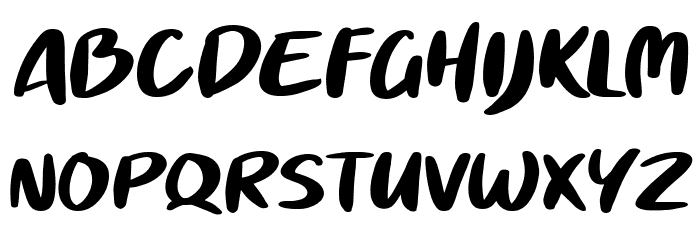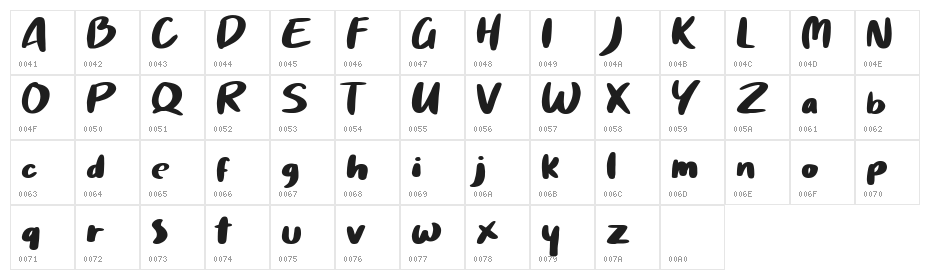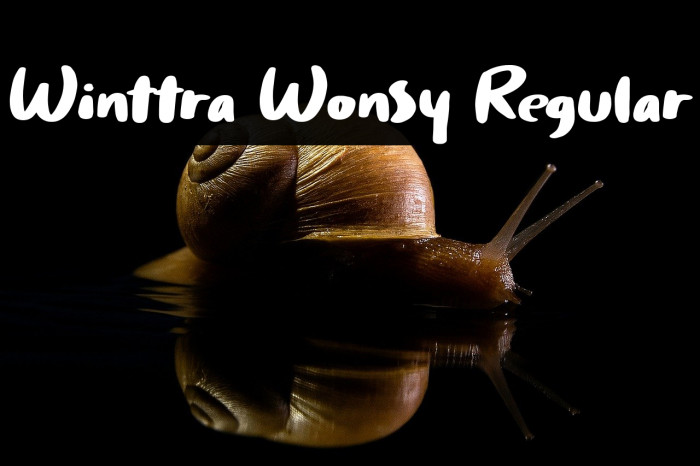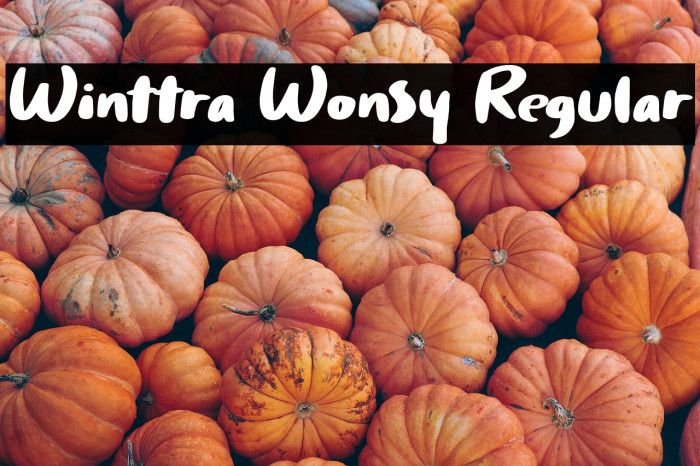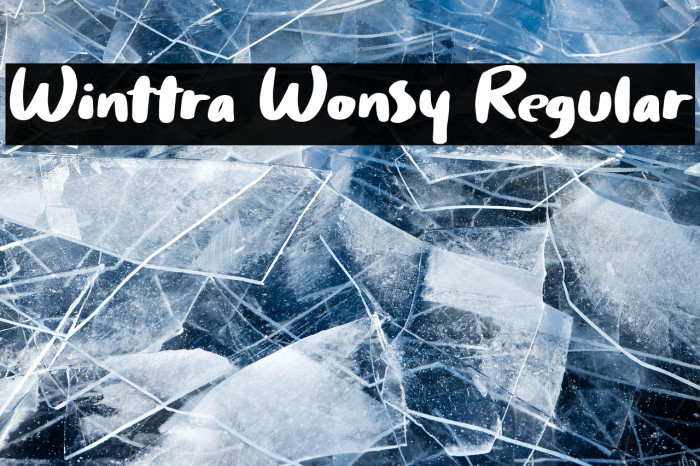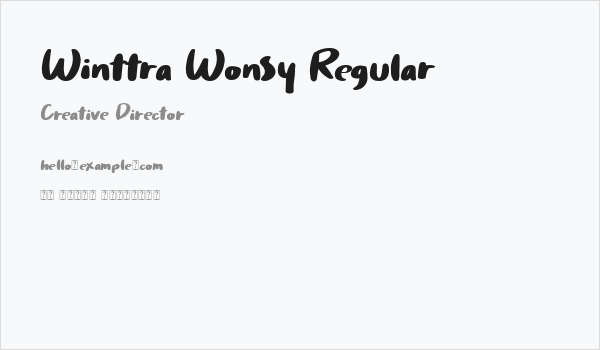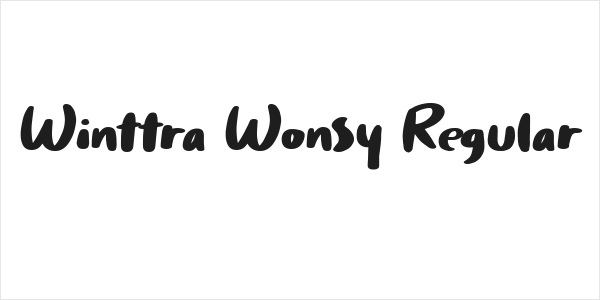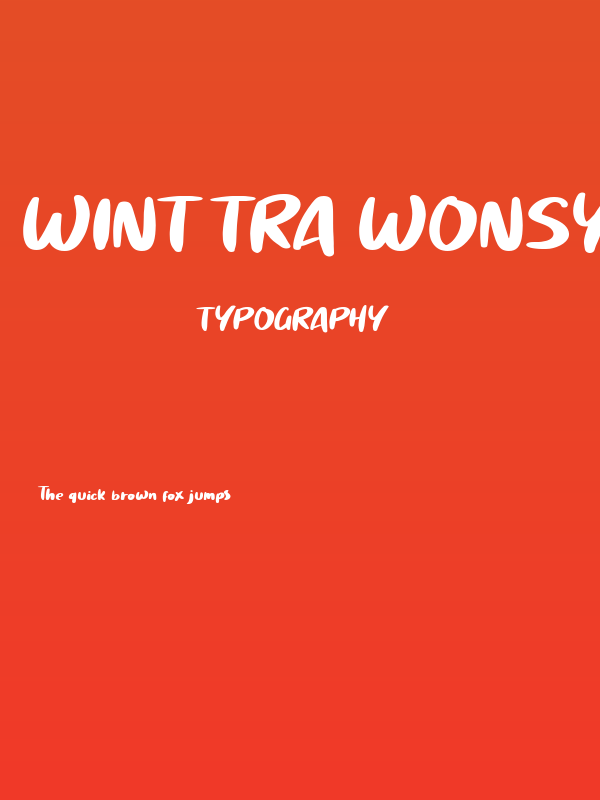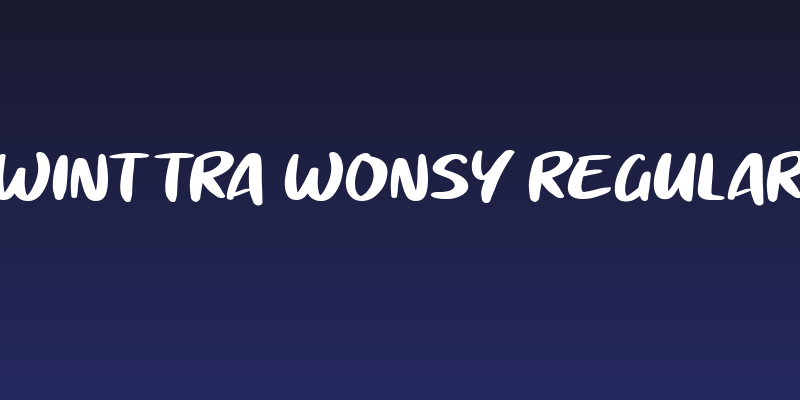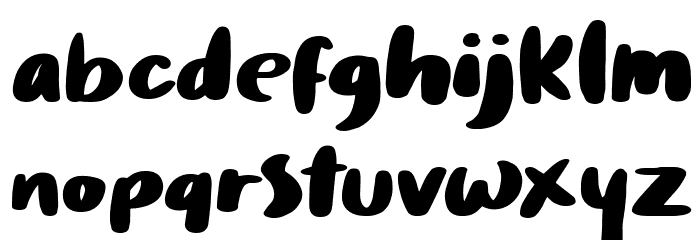
Winttra Wonsy Regular Font
Winttra Wonsy Regular Description
This font features a bold and expressive style with a handwritten appearance. The characters are thick and rounded, giving a playful and energetic feel. The strokes are smooth and consistent, with a slight slant that adds a dynamic touch. The uppercase and lowercase letters maintain a cohesive look, while the numbers and special characters are equally bold and prominent. This font is ideal for projects that require a personal and friendly touch, such as invitations, posters, and branding materials.
| Proposed Projects | Ideal for invitations, posters, branding, and any project needing a personal touch. |